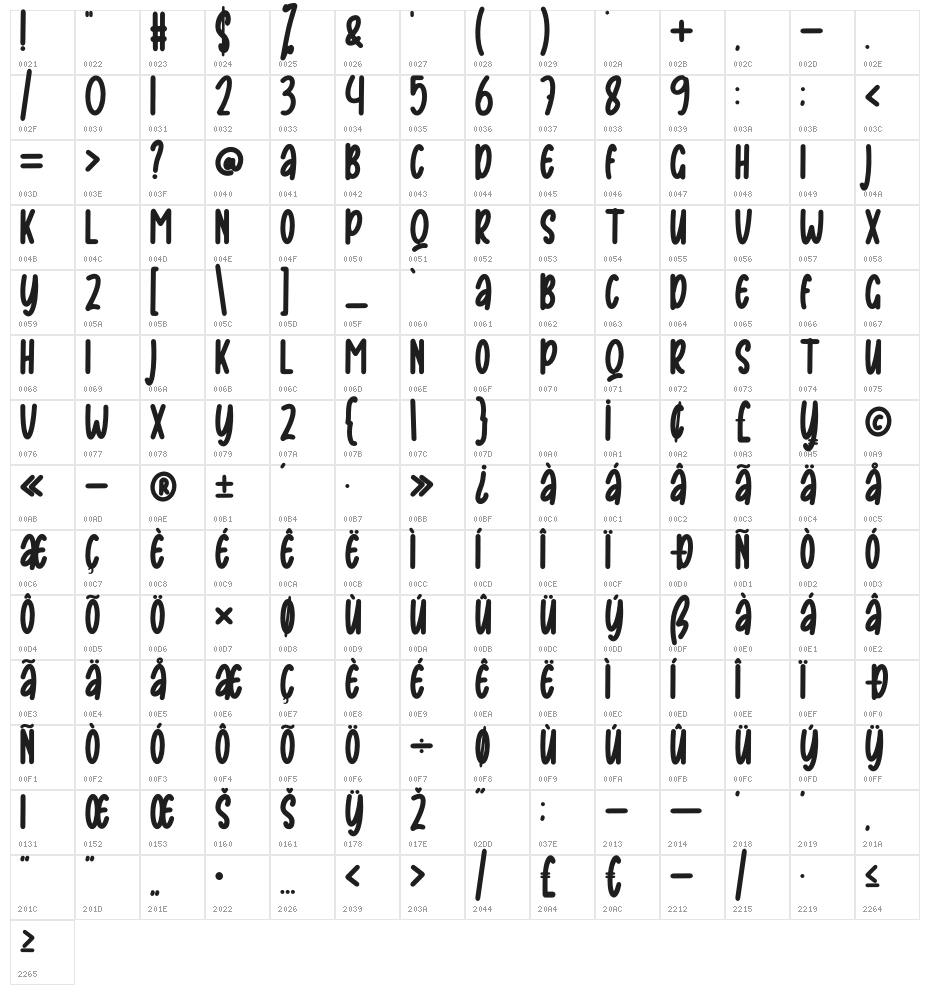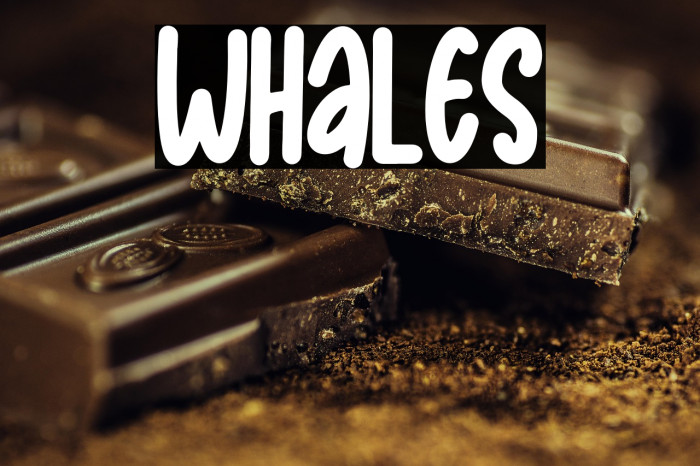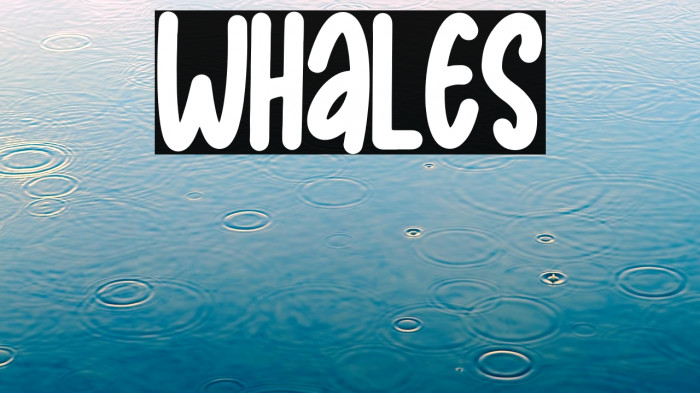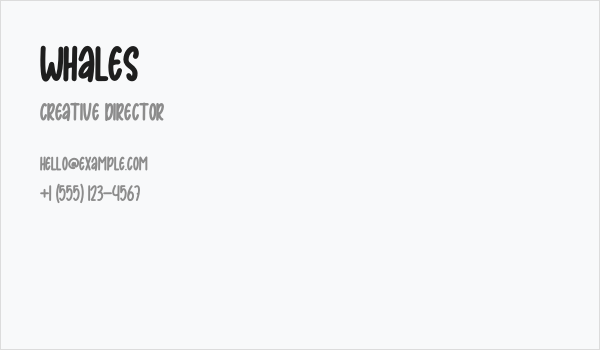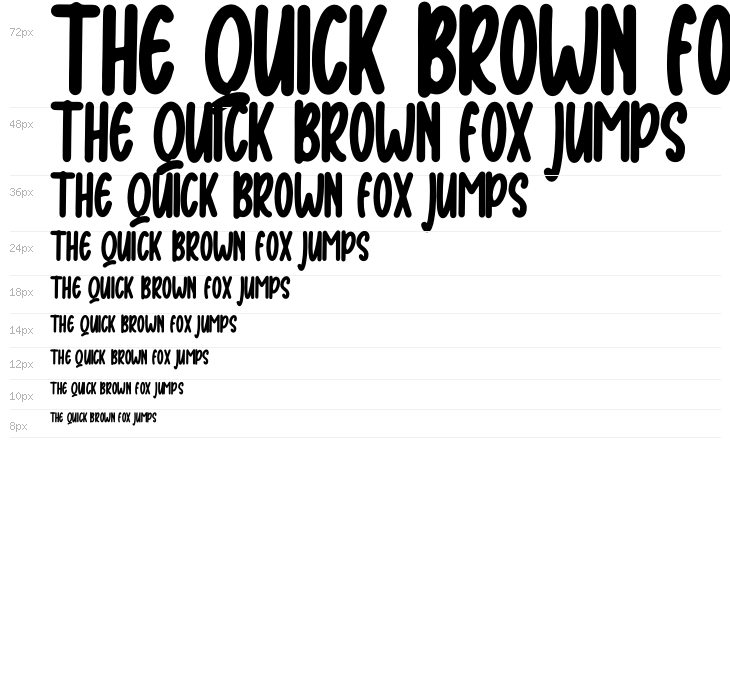
Whales Font
Whales Description
This font features a bold, playful style with thick, rounded strokes that give it a friendly and approachable appearance. The characters are slightly condensed, enhancing readability while maintaining a whimsical charm. The uppercase and lowercase letters are consistent in style, with smooth curves and a uniform thickness that adds to its cohesive look. The numbers and special characters follow the same design principles, ensuring a harmonious overall appearance. This font is ideal for projects that require a fun and engaging visual element, making it suitable for children's books, playful branding, or eye-catching headlines.
| Proposed Projects | Children's books, playful branding, eye-catching headlines, posters, and social media graphics. |